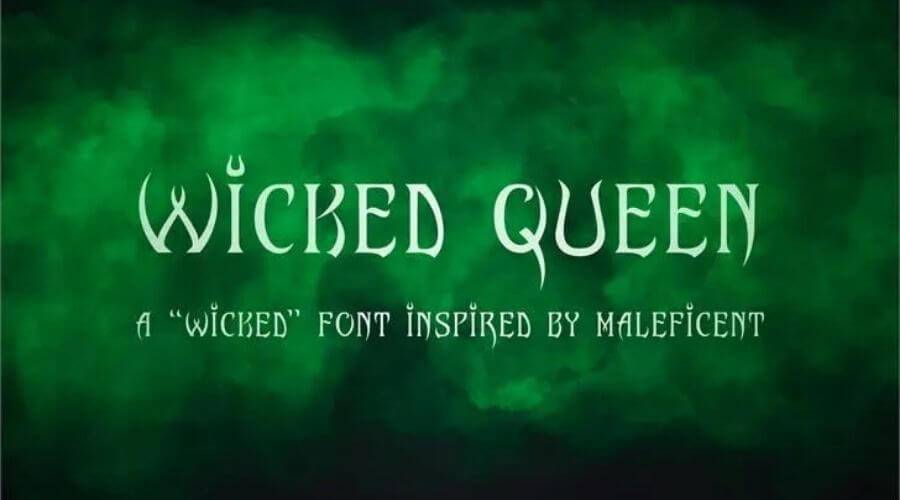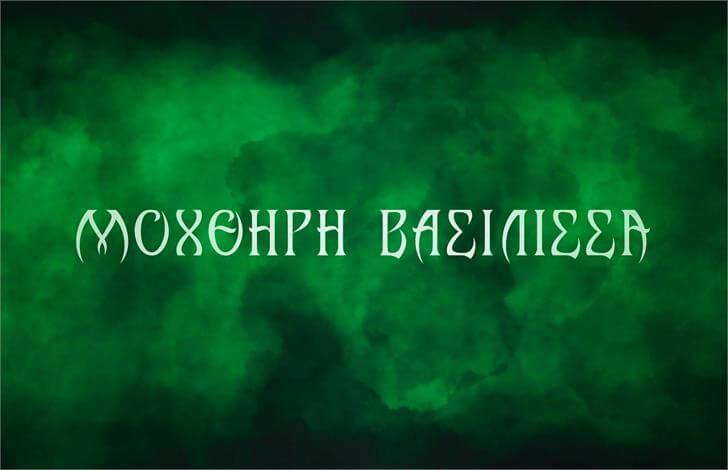
Wicked Queen Font
Today I’m going to show you Wicked Queen Font, a fantastic Display Horror font that was updated on October 2, 2019. The Wicked typeface Queen is offered as a Personal Use Only! font with capital, lowercase, numeric, and some special character and alternatives. Blambot-fonts created and published the font.
Wicked Queen Font is ideal for logos, branding, invitations, stationery, wedding invitations, logos, business cards, covers, t-shirts, social media posts, and more. It will also be utilized to generate a stunning image and text in a variety of colours and styles. The font looks amazing with green colour in wallpapers. The typeface works well with any horror setting, whether it’s a horror film, a horror novel, or a horror television show.